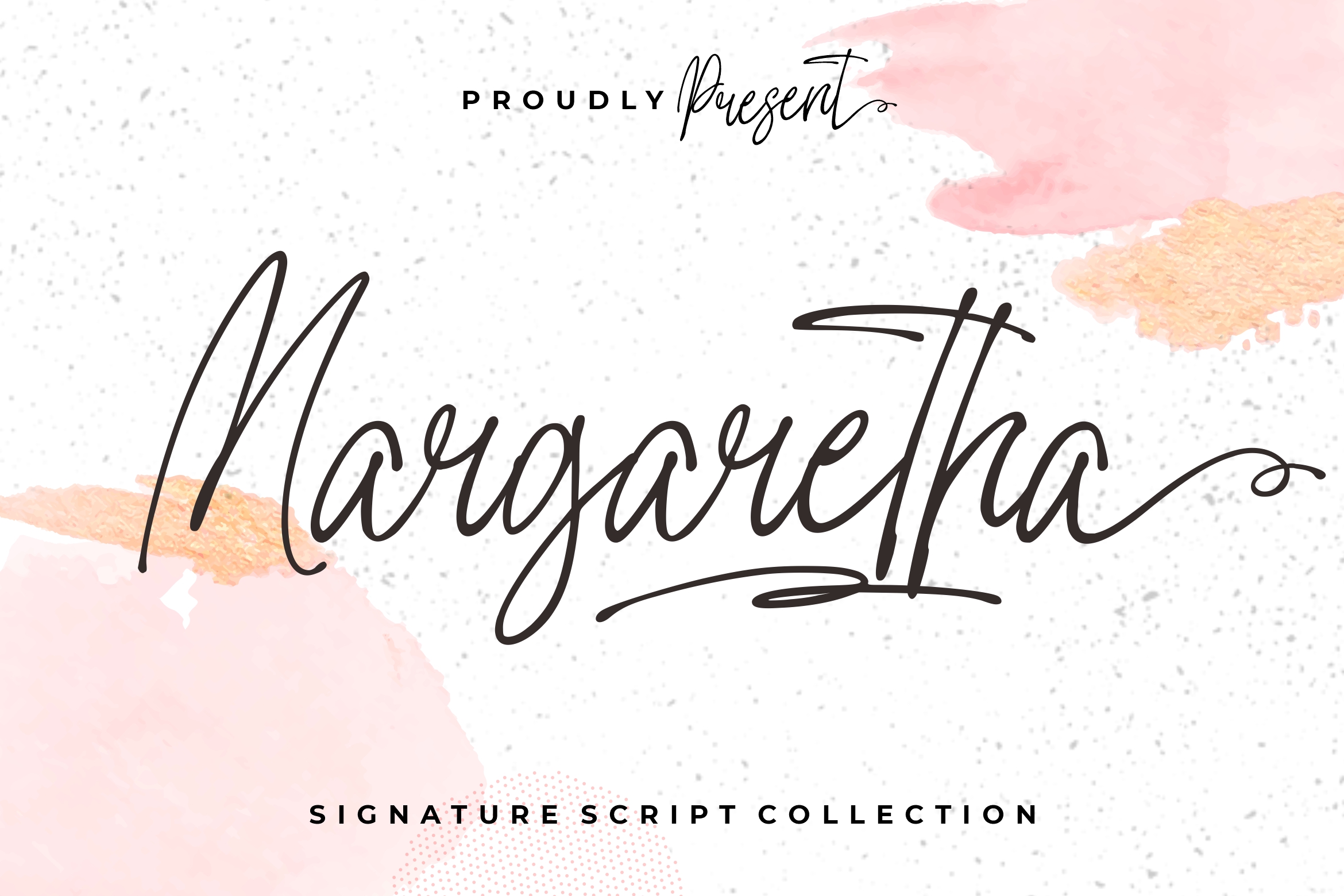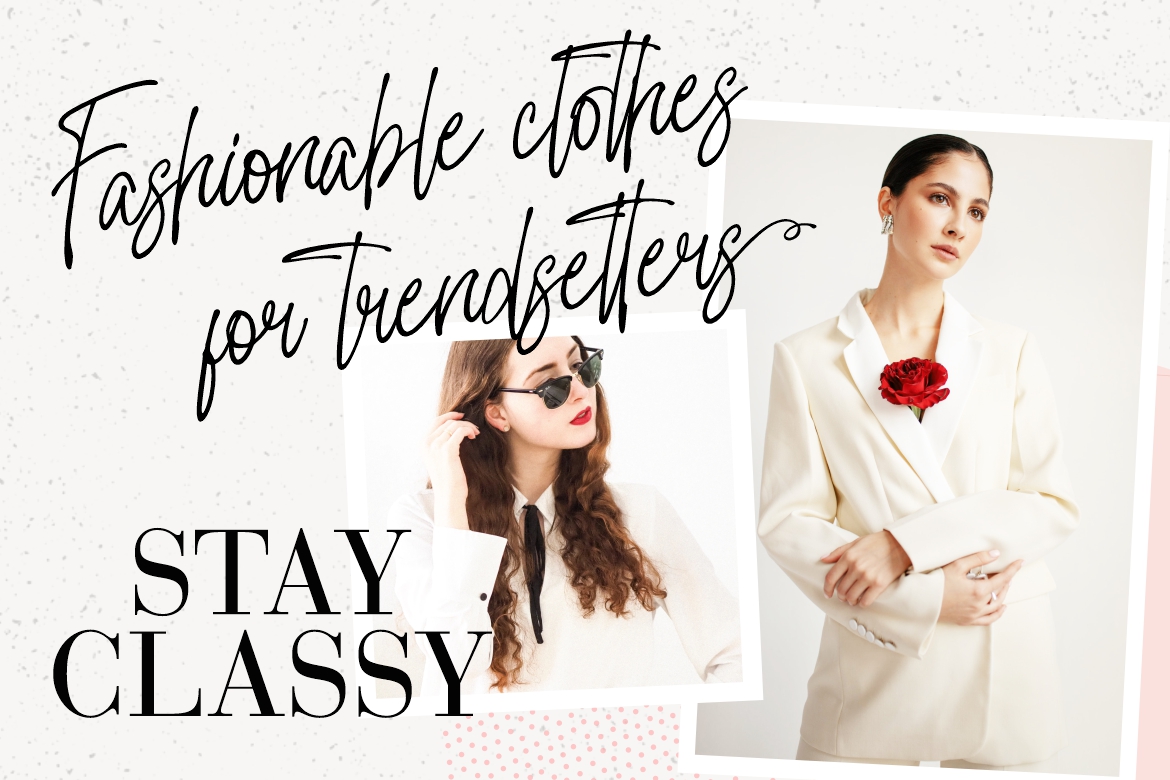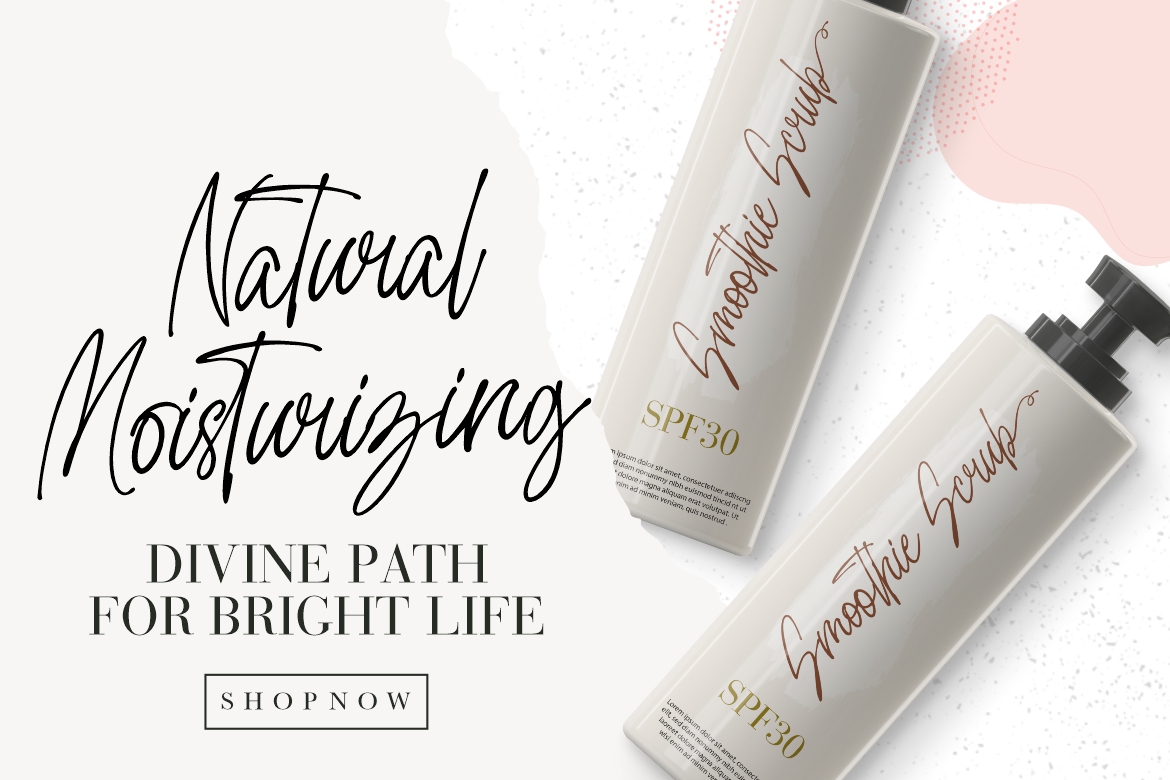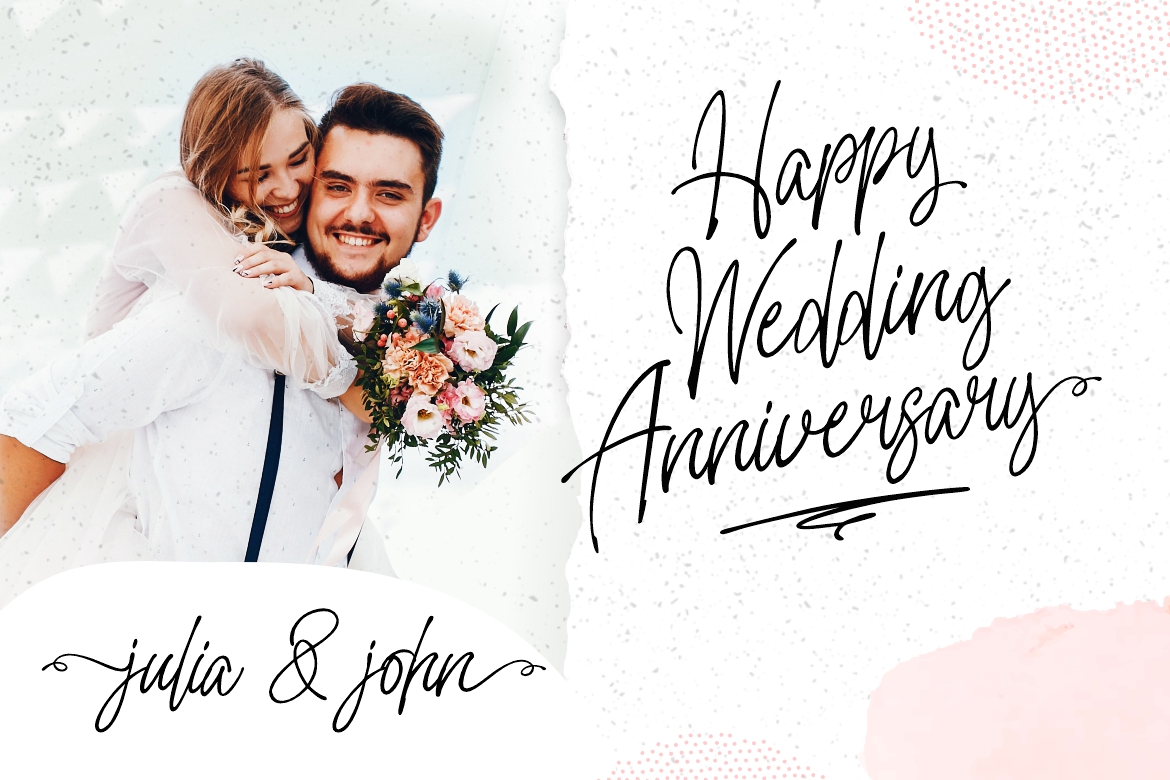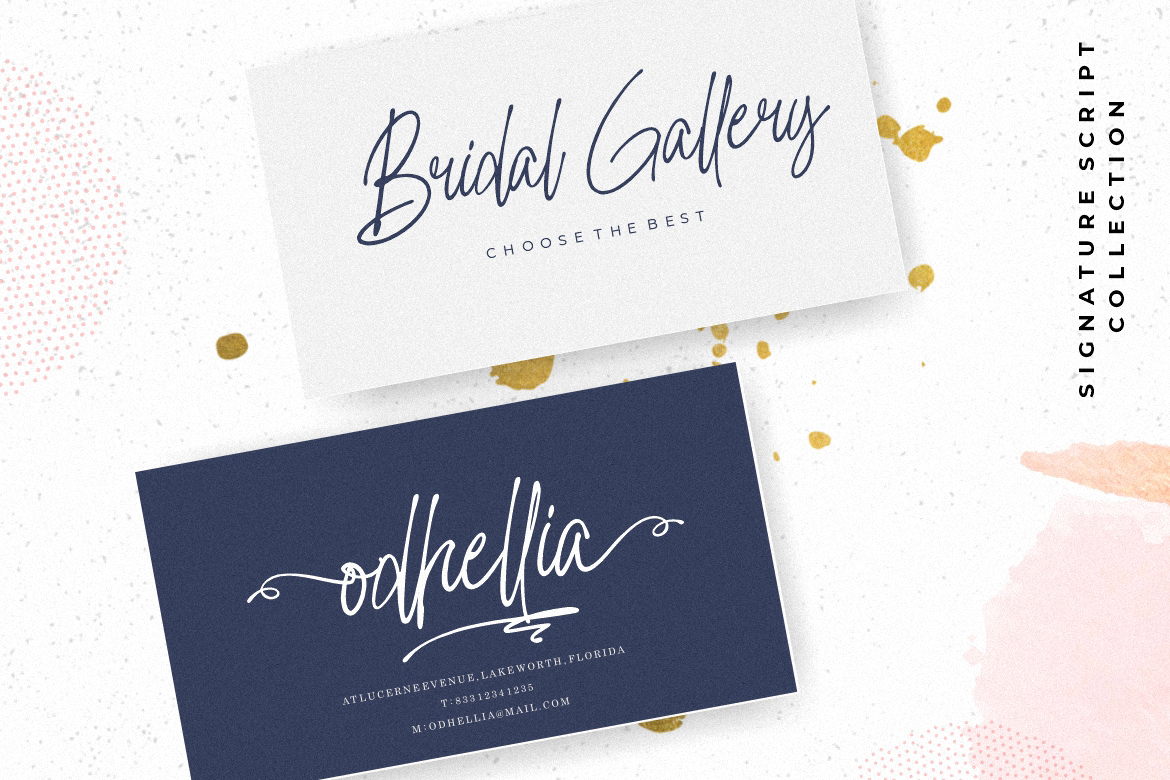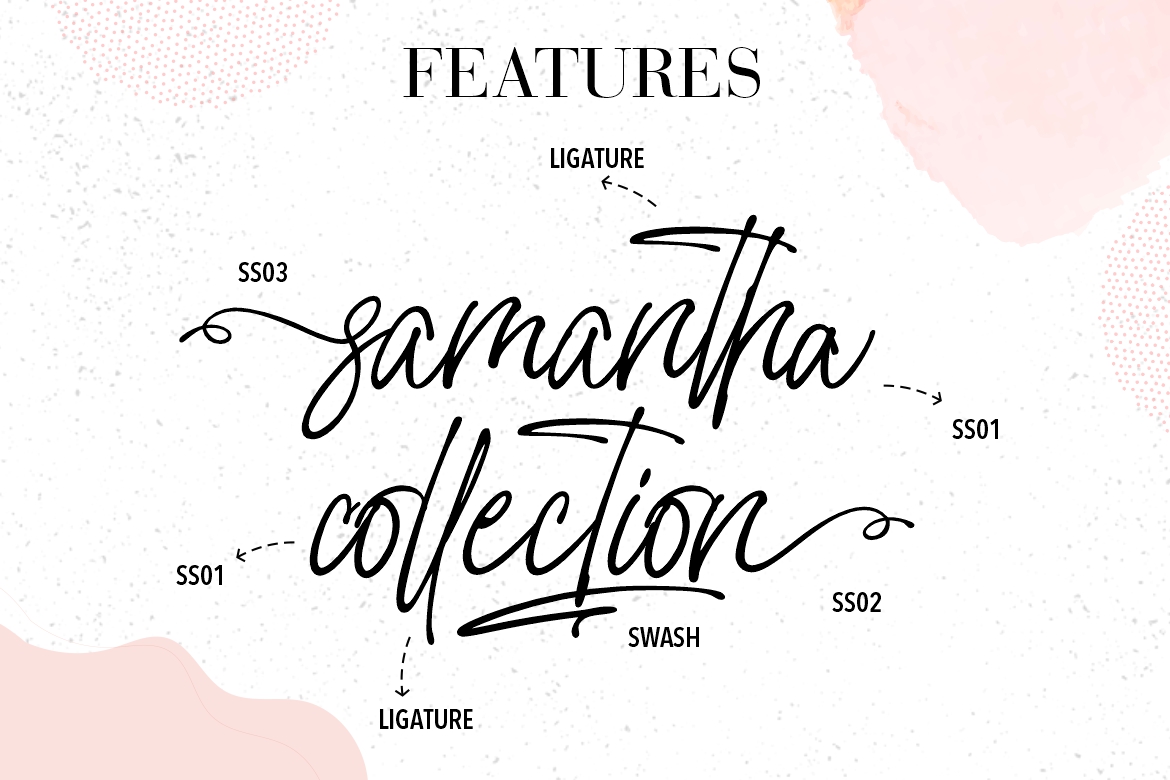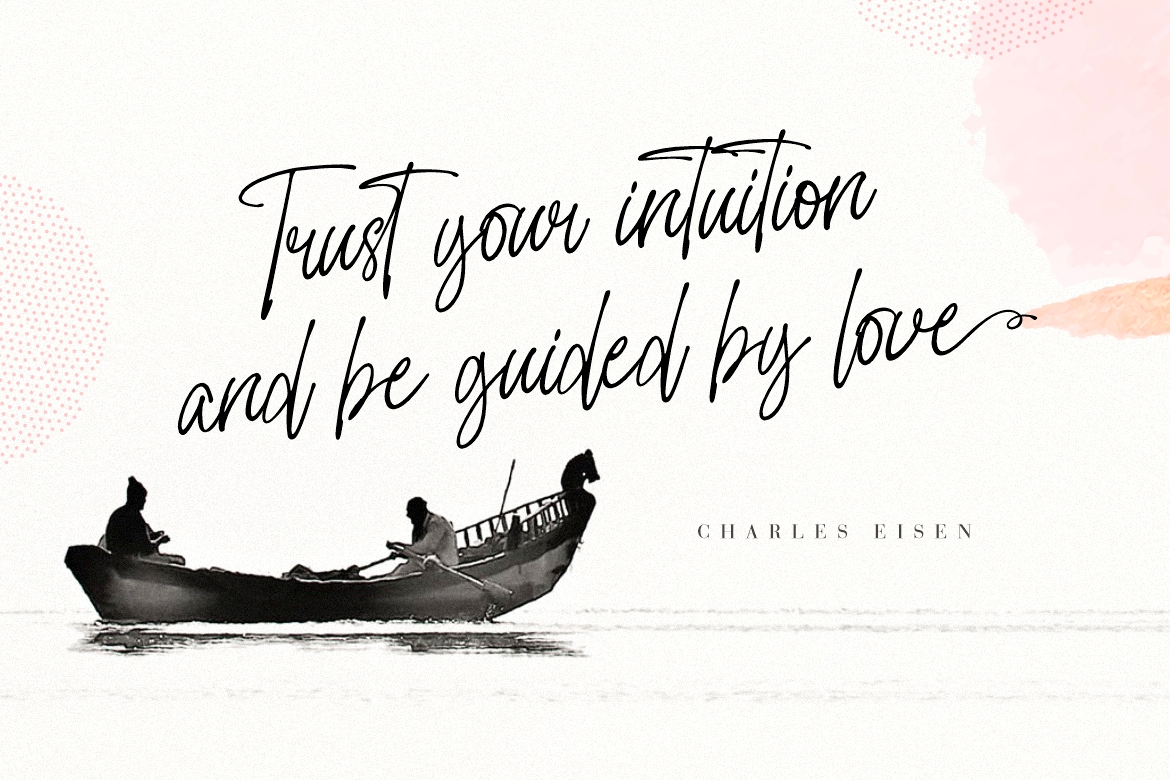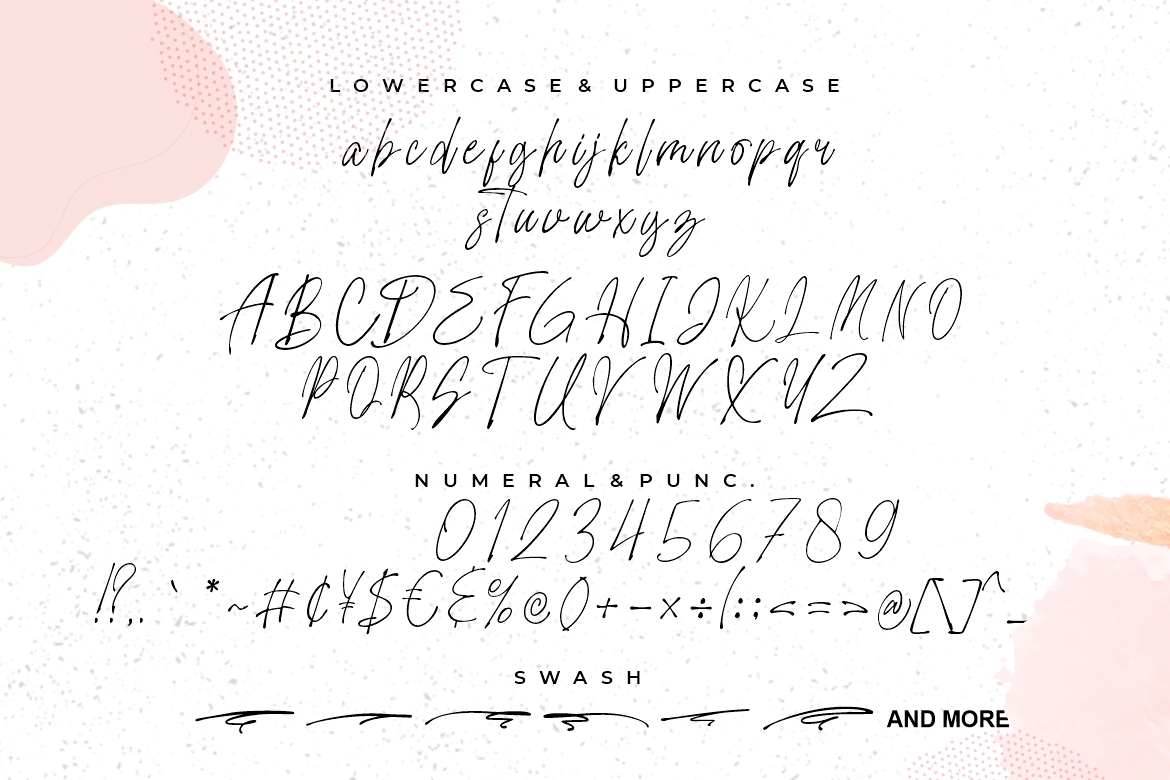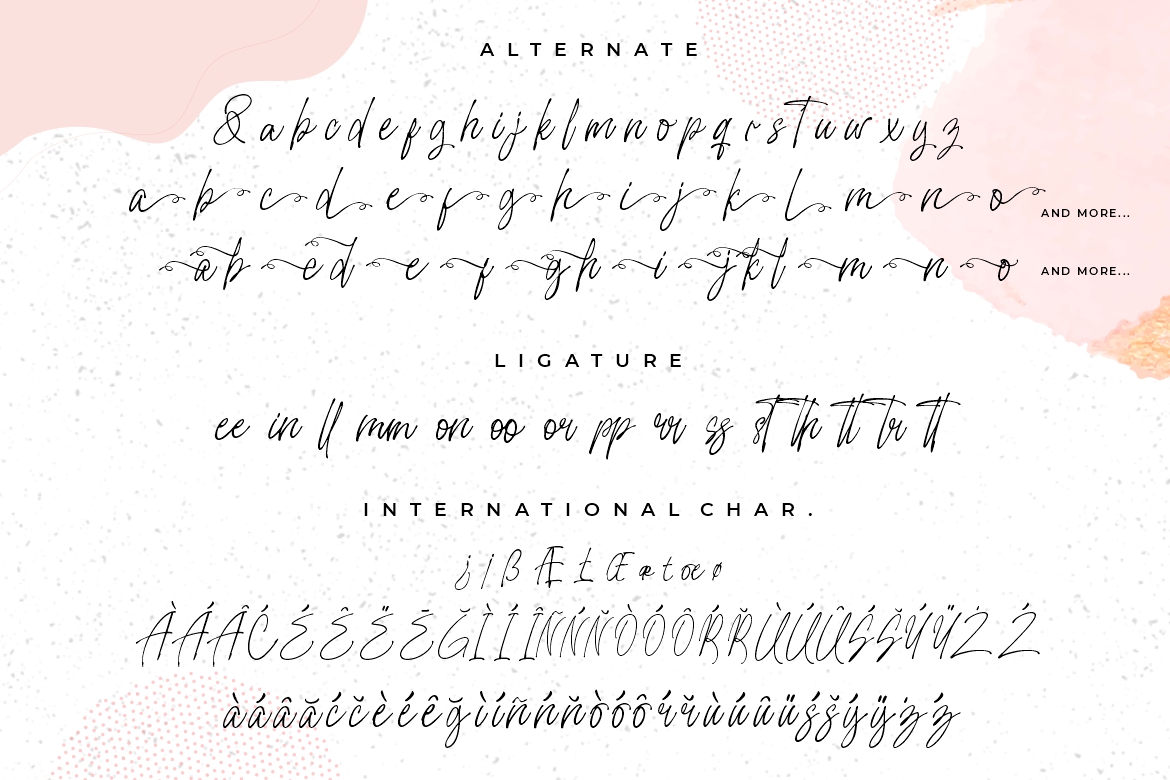
Margaretha Signature Business Font
Introducing Margaretha – A signature script font with various alternate and ligature for your elegant font collection. This font will looks awesome and amazing in many way to your latest project. The font is perfect for movie title, logo, blogging, brand identity, book title, social media, branding, wedding invites, cards or simply use it in your next design project and suitable to use for many occasion.